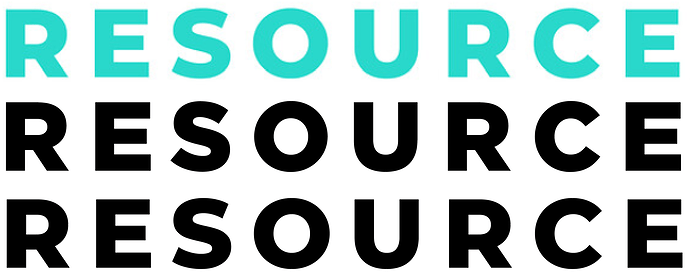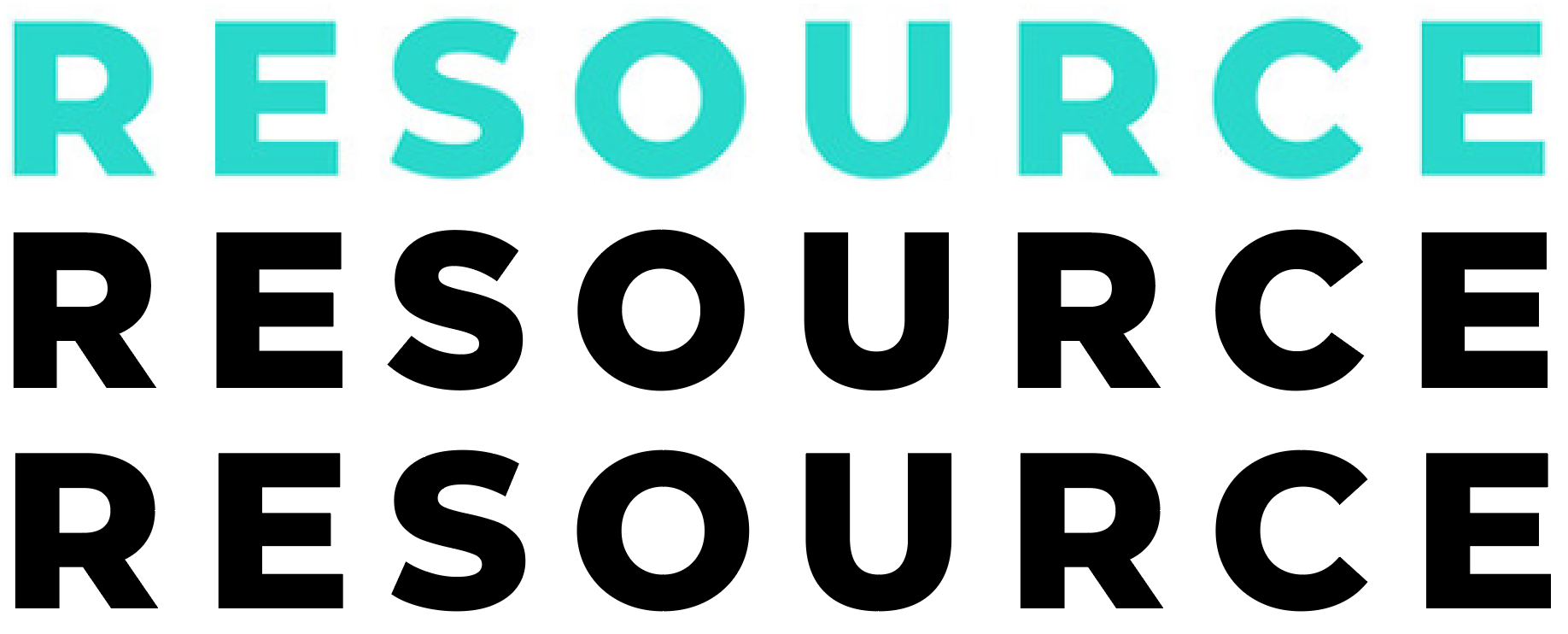
Anybody recognize this font? I’m lookin’ at you RKK.
Or anyone else. I can get close, but not an exact match. Thanks.
On my phone ,but might be this Organetto Ultra Bold Font | Webfont & Desktop | MyFonts
Looks like Montserrat Extra Bold
My G was way off!!! Doh!
The middle one is Gotham Black. The bottom one is Montserrat ExtraBold. I don’t think I ever realized how similar Montserrat is to Gotham.